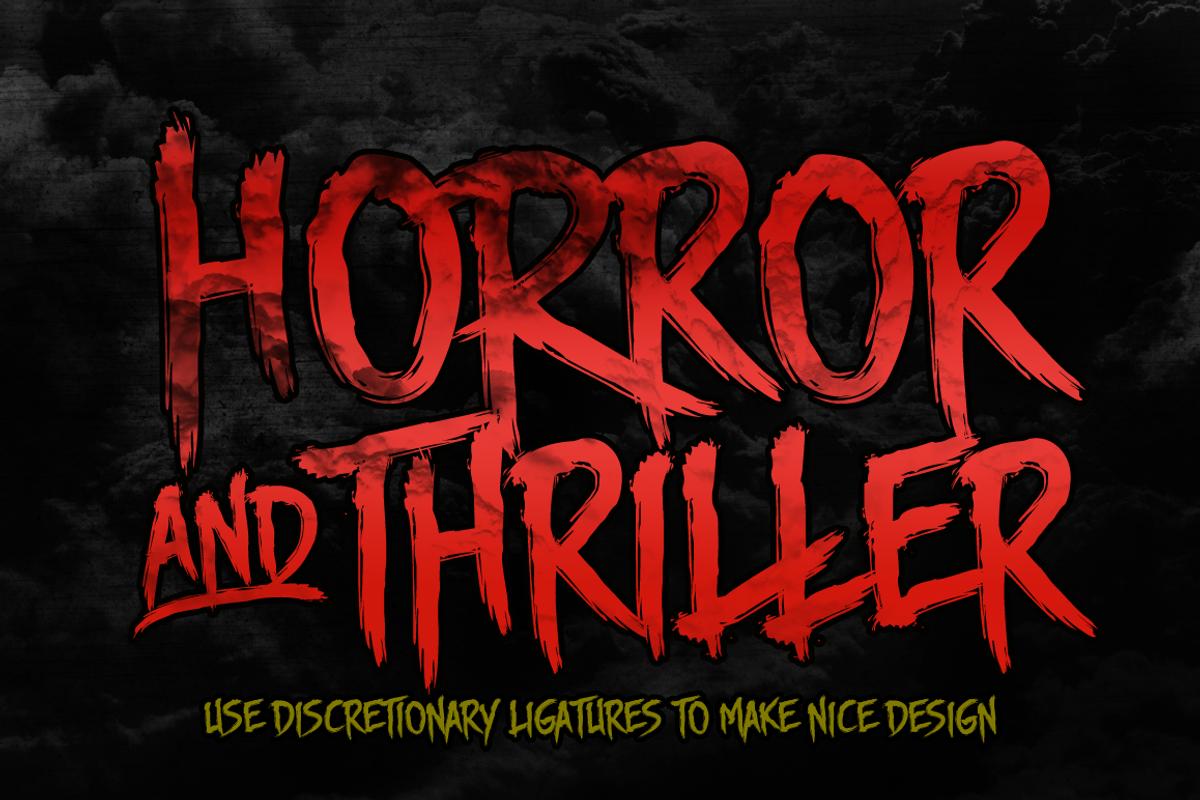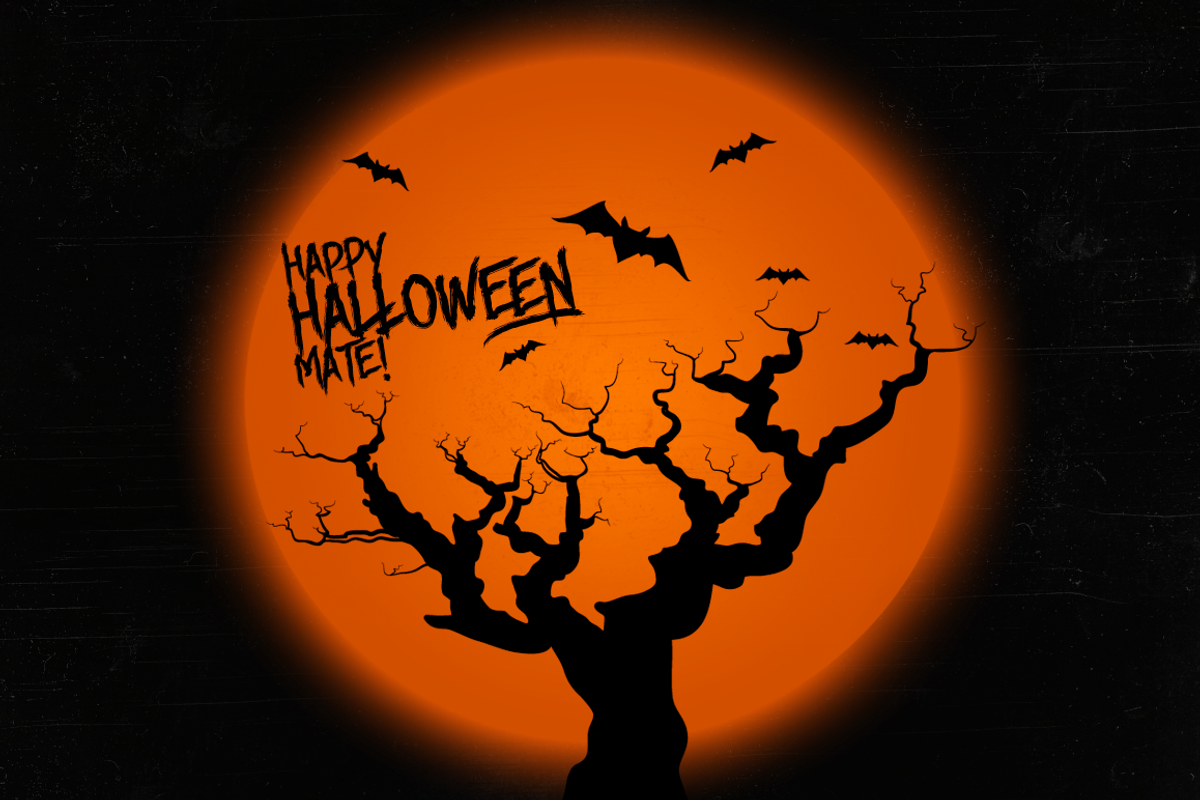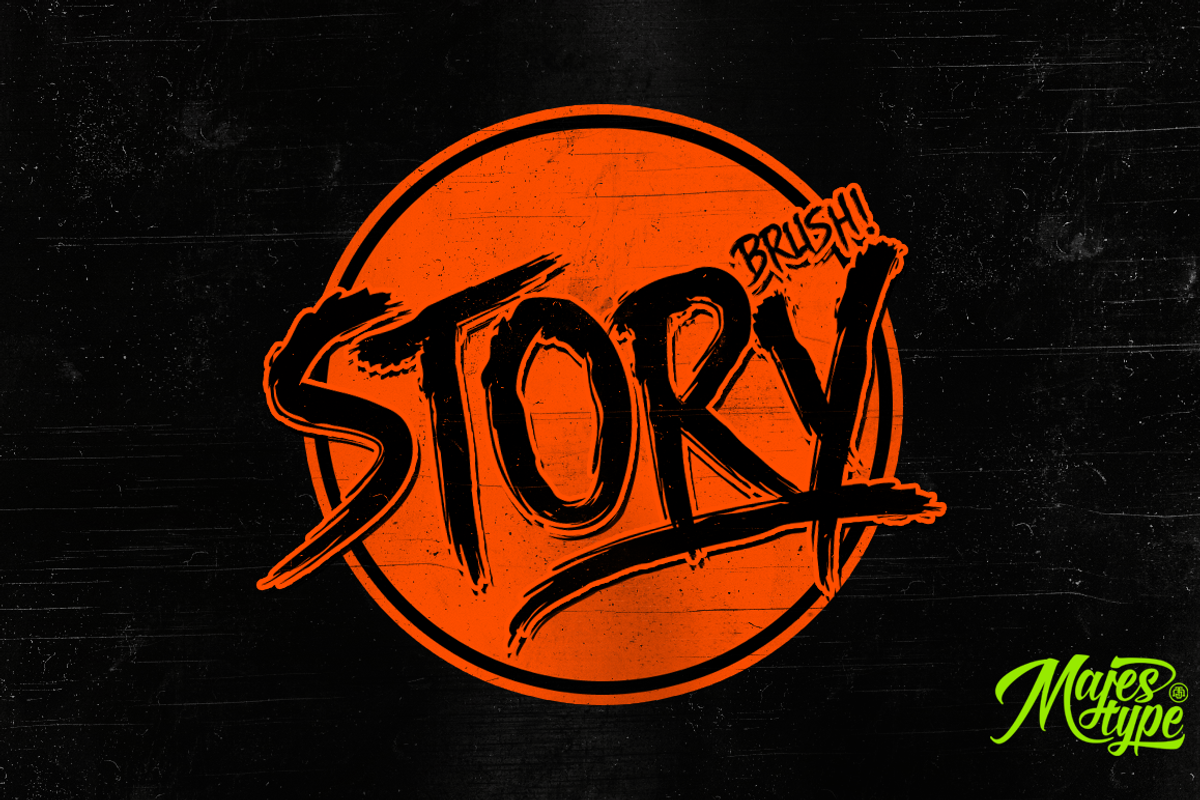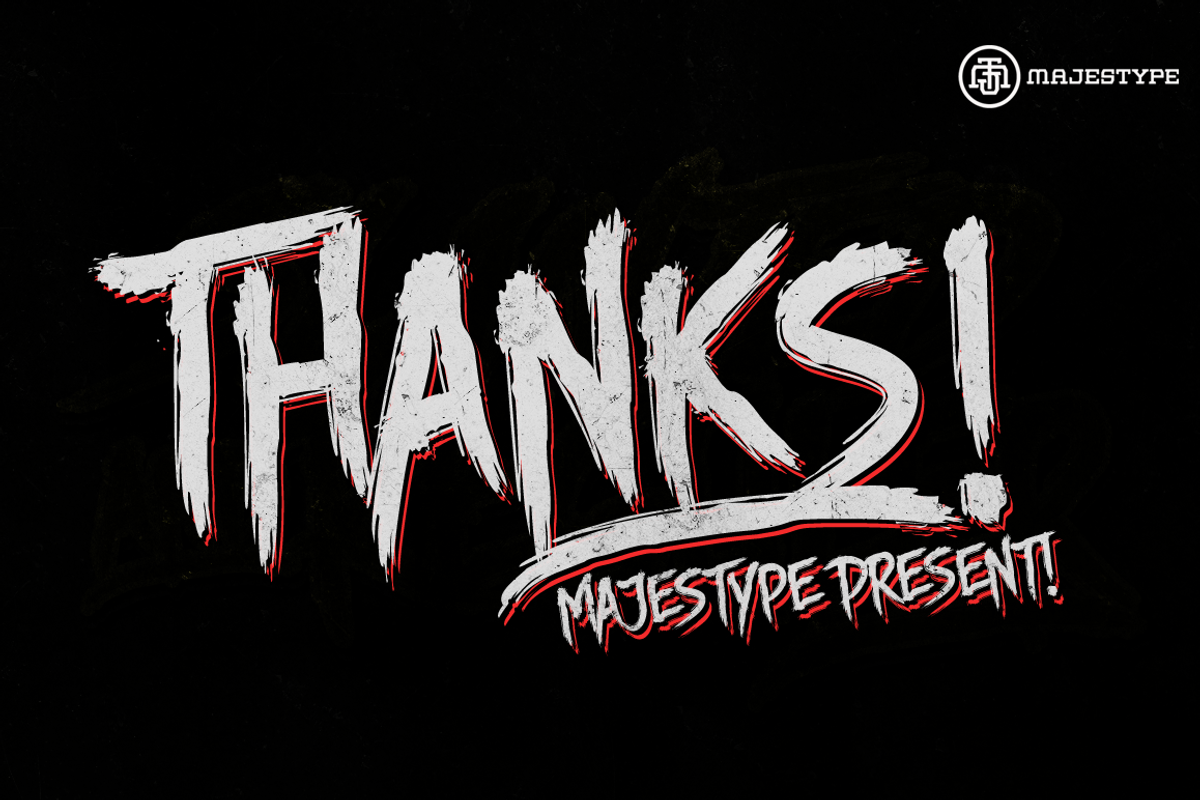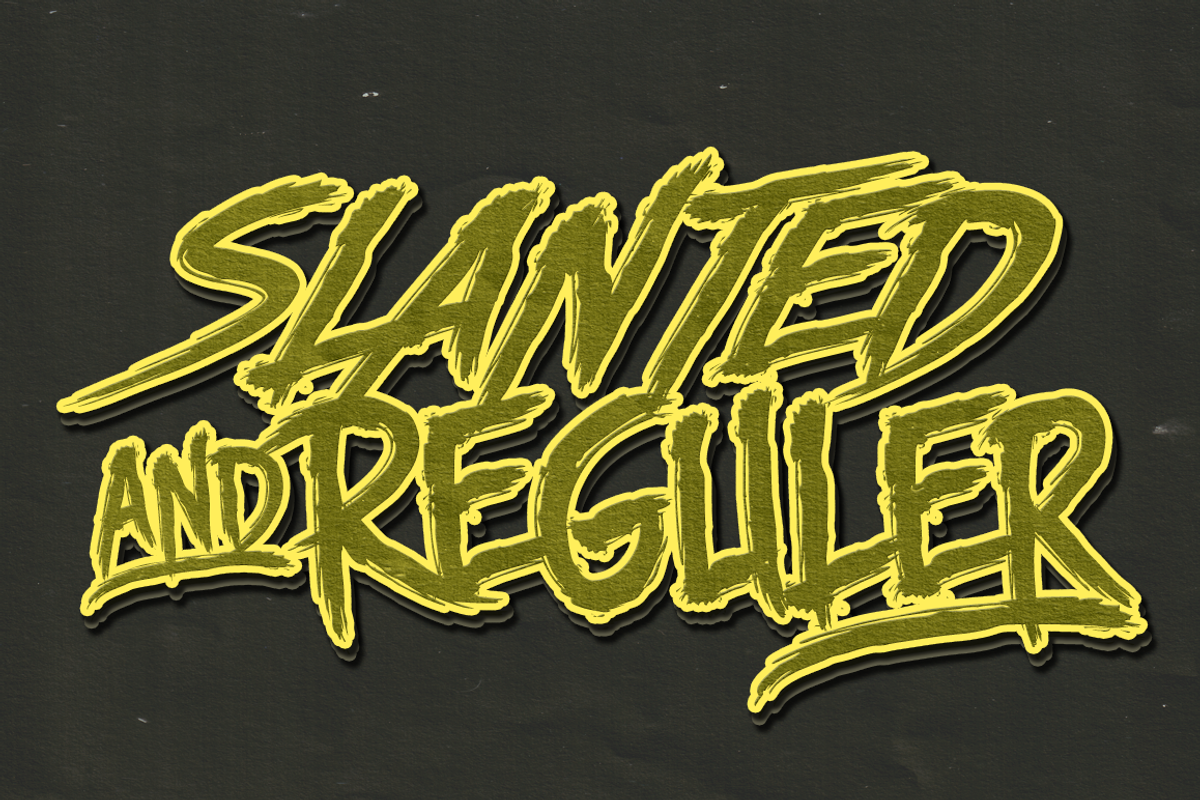
Story Brush + Webfonts - Brush Font
Story Brush is a highly detailed brush font that includes over 240 glyphs and comes in two versions: Regular and Slanted. It's a versatile and unique font that's perfect for horror and Halloween-themed designs. The font is designed to give your design a creepy, bloody, and eerie feel all at once, making it perfect for a variety of projects.
Notably, Story Brush has been used in Hollywood films, video games, and clothing designs by well-known brands. It is a great choice for many design projects, including movie posters, video game titles, t-shirt designs, and more. The font is designed to give your work a standout look, making it perfect for anyone looking to create something bold and memorable.